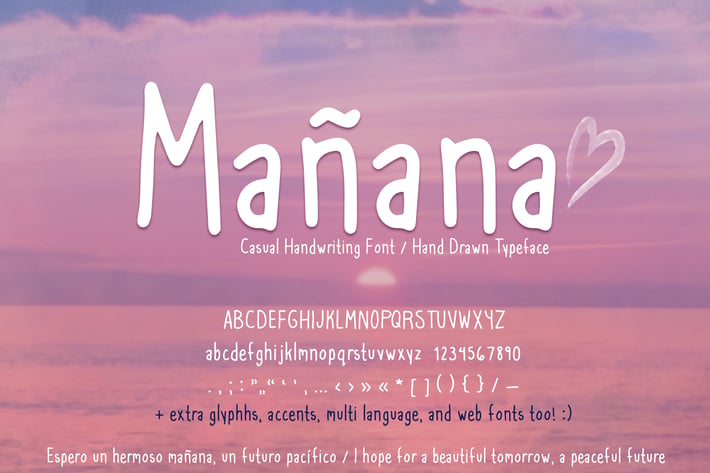
Mañana Casual Handwriting Font + Web Fonts
Introducing Mañana Casual Handwriting Font, a fun choice if you're looking for hand drawn aesthetic fonts. It has a relaxed feel, like pen strokes on a page. I love cute fonts with an organic look. Whether you're looking for cute fonts, handwriting fonts, or just some different fonts to add to your collection, I hope you enjoy this one!
Mañana also includes a variety of accents, extended Latin characters for multiple languages, and web fonts too! Enjoy!